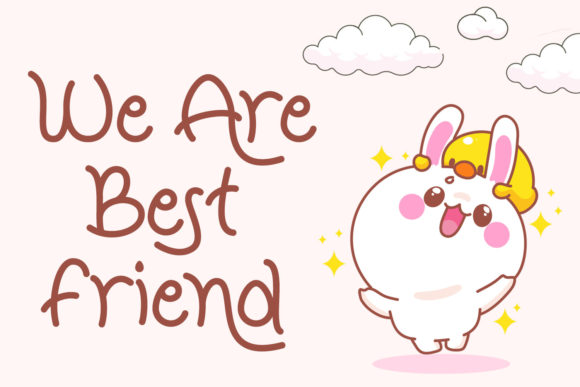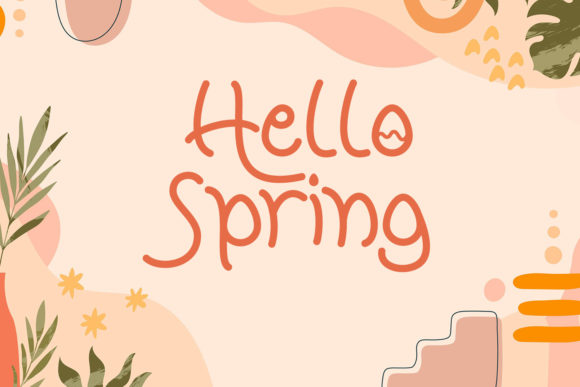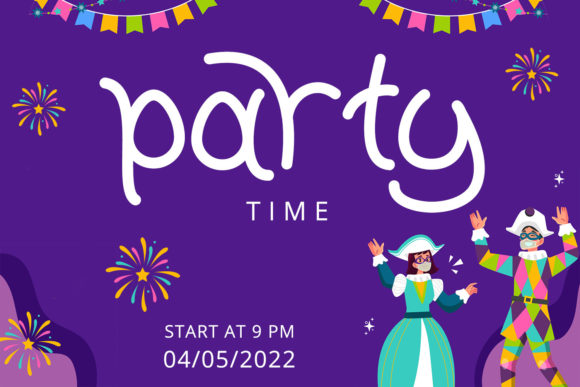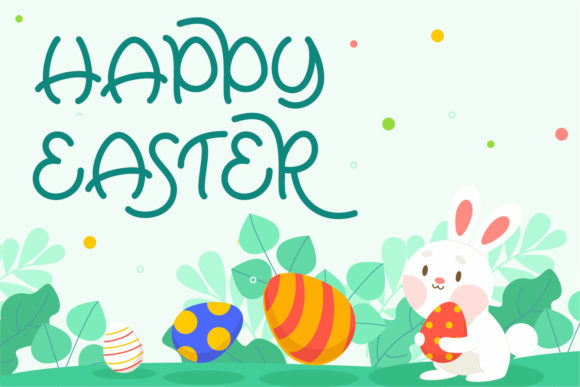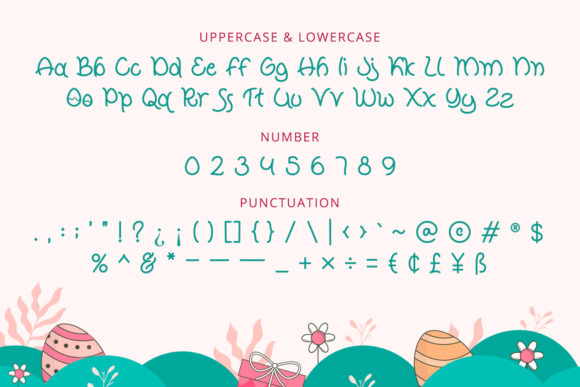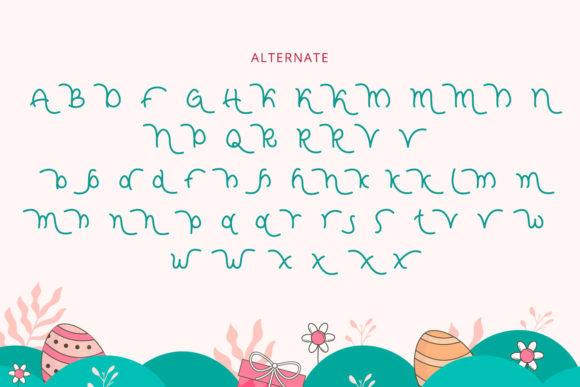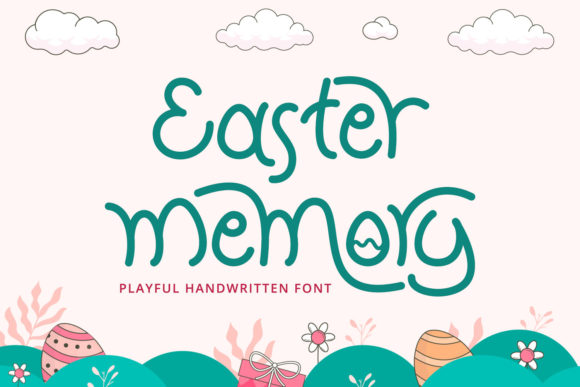
Easter Memory Font: Elevate Your Creations with this Delicate Script Font
Are you a designer or crafter looking for a unique and stylish font to add a touch of elegance to your creations? Look no further than the Easter Memory Font! This beautiful, thin lettered script font is perfect for anyone who wants to add a bit of sophistication and whimsy to their designs.
What is Easter Memory Font?
Easter Memory Font is a delicate script font that is both trendy and stylish. Its thin letters and intricate details make it perfect for a variety of design projects, from greeting cards and invitations to branding and packaging. This font is sure to elevate each of your creations and make them stand out from the crowd.
Key Features of Easter Memory Font
So, what makes Easter Memory Font so special? Here are just a few of its key features:
- Thin lettered and delicate script font: Easter Memory Font features beautiful, thin letters that are perfect for creating elegant and sophisticated designs.
- Trendy and stylish: This font is perfect for designers and crafters who want to stay on top of the latest design trends.
- PUA encoded: Easter Memory Font is PUA (Private Use Area) encoded, which means that you can access all of the glyphs and swashes with ease. This makes it easy to customize your designs and add your own personal touch.
Why Choose Easter Memory Font?
So, why should you choose Easter Memory Font for your next design project? Here are just a few reasons:
- Unique and eye-catching: Easter Memory Font is a unique and eye-catching font that is sure to make your designs stand out from the crowd.
- Elegant and sophisticated: This font is perfect for creating elegant and sophisticated designs that are perfect for a variety of occasions.
- Easy to use: Easter Memory Font is easy to use and customize, thanks to its PUA encoding.
- Perfect for a variety of projects: This font is perfect for a variety of design projects, from greeting cards and invitations to branding and packaging.
How to Use Easter Memory Font
Using Easter Memory Font is easy! Here are a few tips for getting started:
- Pair it with other fonts: Easter Memory Font pairs perfectly with other fonts, such as bold sans serif fonts or elegant script fonts.
- Experiment with different colors: This font looks great in a variety of colors, from soft pastels to bold brights.
- Add your own personal touch: Use the PUA encoding to access all of the glyphs and swashes and add your own personal touch to your designs.
Here are a few additional tips for designers and crafters who are using Easter Memory Font:
- Use it for Easter-themed designs: This font is perfect for Easter-themed designs, such as Easter egg hunt invitations or Easter basket labels.
- Experiment with different sizes: Easter Memory Font looks great in a variety of sizes, from small and delicate to large and bold.
- Combine it with other design elements: This font pairs perfectly with other design elements, such as flowers, ribbons, and other Easter-themed graphics.